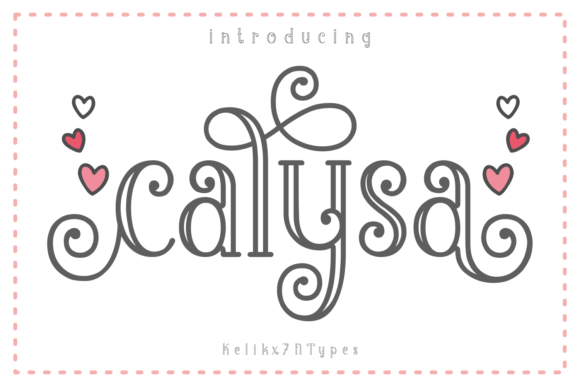
Step into the captivating world of Calysa Font, where elegance and playfulness dance together to create an enchanting display font like no other. With its meticulously crafted characters, Calysa adds a touch of personal charm to every project it graces.
Indulge in the beauty of Calysa, a display font that captivates with its unique style. Each letter dances gracefully, exuding a sense of joy and playfulness. Let Calysa's whimsical aura transform your designs, adding a touch of magic to every page.
Effortlessly elevate your designs with Calysa, the perfect font for a myriad of creative endeavors. From wedding invitations that exude romance to heartfelt thank you cards, Calysa adds a layer of charm and sophistication. Unleash your creativity and let Calysa weave its magic into your designs.
Step into a world of boundless possibilities with Calysa. Its versatility knows no bounds, making it an ideal choice for logos, business cards, and countless other design projects. Calysa effortlessly adapts to your vision, adding a touch of distinction to every element.
Experience the ease and convenience of Calysa's PUA encoding. With this innovative feature, accessing the font's entire glyph repertoire and swashes is a breeze. Open up a world of creative possibilities and create designs that truly stand out from the crowd.